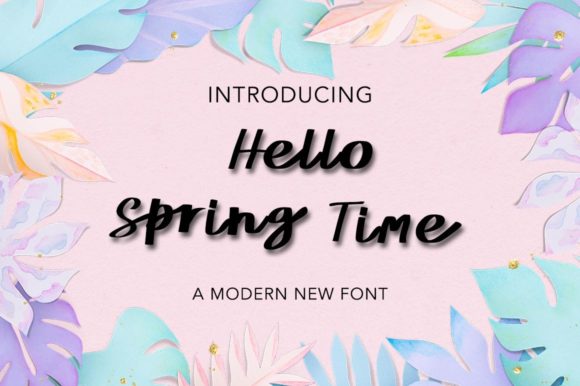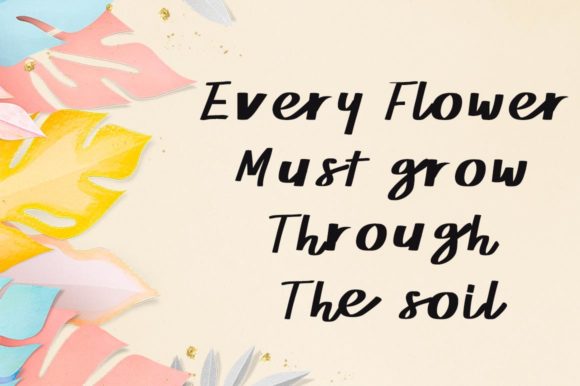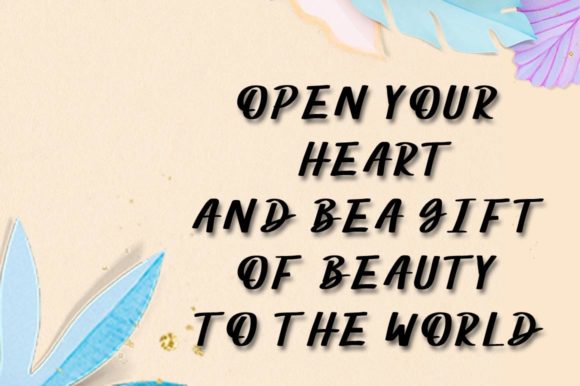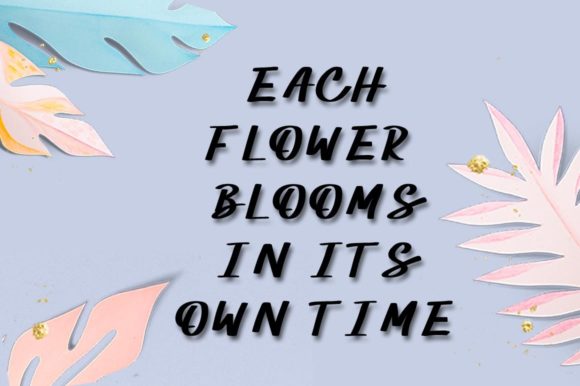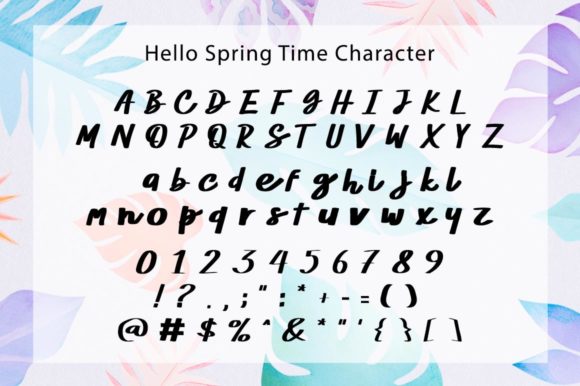
Hello Spring Time Font
About Hello Spring Time Font
“Hello Spring Time” is a charming and casual script font designed to shine in any creative context. Whether you’re in search of fonts for Instagram posts or calligraphy scripts for DIY projects, this font promises to transform your ideas into genuine works of art.
The inherent cuteness of “Hello Spring Time” makes it a delightful choice for a variety of applications. Its playful script style adds a touch of whimsy, creating designs that feel both lighthearted and visually appealing.
For logos, this font becomes a standout choice, injecting a sense of charm and approachability into brand identities. Its casual script creates a friendly and relatable visual language, making it suitable for businesses that want to convey a warm and inviting personality.
Headings and titles come to life with the use of “Hello Spring Time.” The font’s lively and casual nature adds a dynamic quality to text, making it a perfect fit for projects where a touch of informality is desired.
In the realm of apparel and merchandise, “Hello Spring Time” finds its place on t-shirts, labels, and badges. The font’s versatility allows it to seamlessly adapt to these applications, creating designs that are both trendy and visually engaging.
Letterheads and signage benefit from the font’s ability to convey a sense of creativity and individuality. Its casual script style ensures that your written content stands out with a personal touch.
Posters and news articles gain a fresh and eye-catching appeal with “Hello Spring Time.” The font’s playful demeanor adds a layer of interest, capturing the attention of viewers and readers alike.
With its broad range of applications, “Hello Spring Time” emerges as a versatile and dynamic font. Its ability to inject cuteness and casual charm into various design projects makes it a valuable asset for those seeking to create visually appealing and engaging content. Let “Hello Spring Time” be the font that brings a touch of playfulness to your creative endeavors, turning each project into a true piece of art.